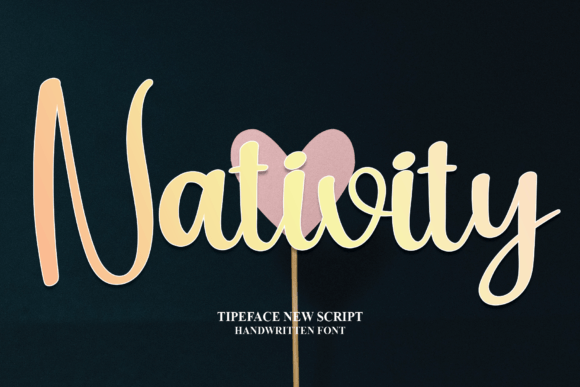
Nativity Font
Bring a warm and approachable feel to your creative projects with the Nativity font. This simple and friendly handwritten script is designed to be your go-to font for many different occasions. Whether you’re working on crafts, digital designs, presentations, or greeting cards, Nativity fits beautifully.
The Nativity font features clean and readable strokes that add charm and friendliness to any design. Its versatile style makes it suitable for various creative uses, helping your projects feel more personal and inviting.
You can apply the Nativity font to crafts, digital artwork, presentations, and card-making. Its natural and casual look works perfectly for projects that want to connect with audiences through a handwritten style. This font is ideal for anyone looking for a neat and easy-to-read script.
Despite its simple design, the Nativity font maintains excellent readability at different sizes. Whether used for large headlines or smaller text, it ensures your message is clear and stylish.
Using the Nativity font will add a genuine and inviting character to your designs. If you want a handwritten font that’s easy to use and versatile, this font is a great choice.
In summary, the Nativity font is a simple, friendly, and versatile handwritten script. Perfect for crafts, digital designs, presentations, and greeting cards, it brings warmth and personality. Download it today and make your projects more inviting with Nativity.